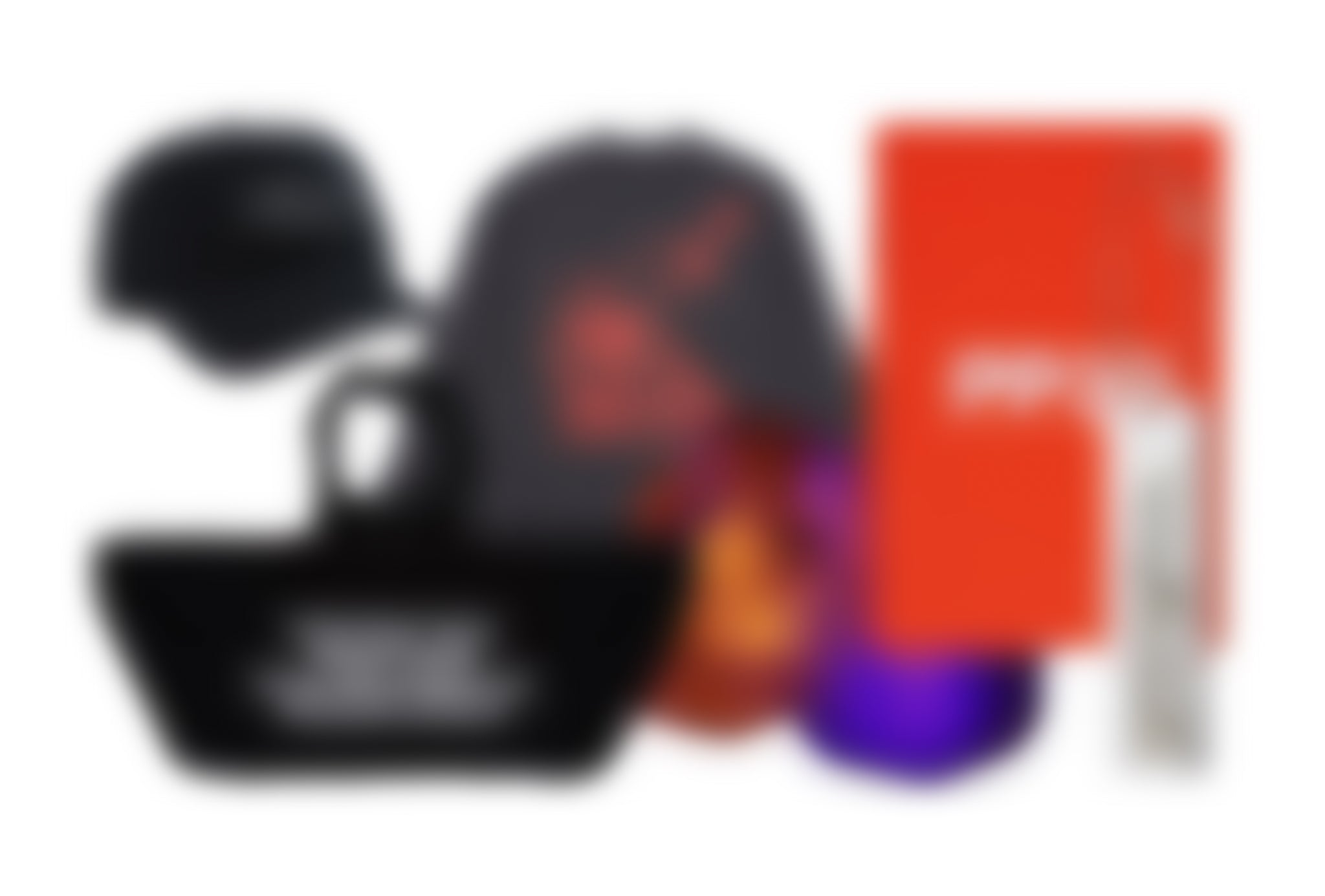
As part of Pangram Playground’s inaugural ‘Play at Work’ series, the silver punch keychain intertwines work and play. Made of Zinc Alloy, it features the beautiful (and as-yet-unreleased) Playground Script, symbolising the synergy between our daily endeavours and the joy of play.
Your new favourite everyday essential, this ‘Quick Over Lazy’ long-sleeve tee – made in the USA from 6.5-ounce cotton – boasts the Playground’s take on the infamous Pangram itself, emblazoned in Off Type’s Neue Montreal Squeeze font no less. Washed for a broken-in feel, it’s a remarkable, wearable canvas merging comfort and creativity.
Beyond being just a bag, but instead a statement, the ‘Previously Known as Oversized Tote Bag’ unapologetically declares its uniqueness – creating something playful, practical and (let’s be honest) really really cool. Made of sturdy 13 oz Bull Denim.
Truly a collector’s item for the typographically-inclined – limited to only 250 copies – this specimen book celebrates Pangram Pangram’s growth and collaboration. Crafted by Studio Ground Floor, each of the 448 pages invites you to explore the diverse typefaces and talents that have shaped Pangram Pangram.
The Playground cap, made of 100% Chino twill, embodies the elegance and understatement of Playground Script. Unstructured, low profile, and embroidered in Montreal, it’s a unisex cap that seamlessly fuses style and comfort.